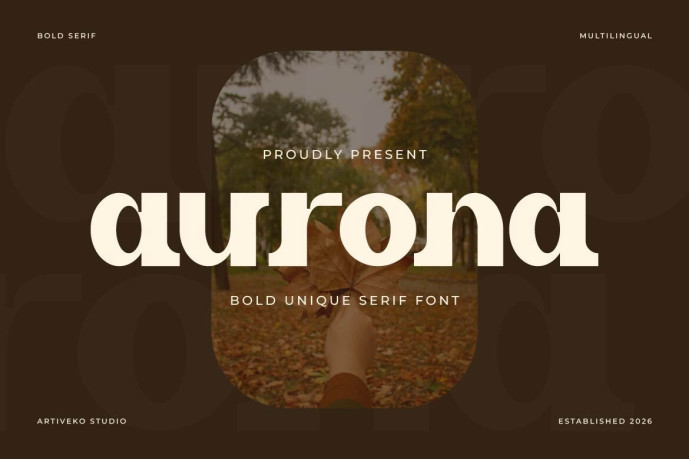
Designer: Iwan Alwan
Make an unforgettable statement with Aurona, a bold, unique serif font! Featuring thick, heavy proportions, smooth retro curves, and expressive serif terminals, this typeface perfectly balances modern luxury with a warm vintage aesthetic. Supports multilingual characters for global versatility.
Ideal for high-end fashion branding, editorial magazine headlines, luxury product packaging, aesthetic quote prints, boutique logos, and stylish social media banners, Aurona gives your typography a confident, high-impact presence.